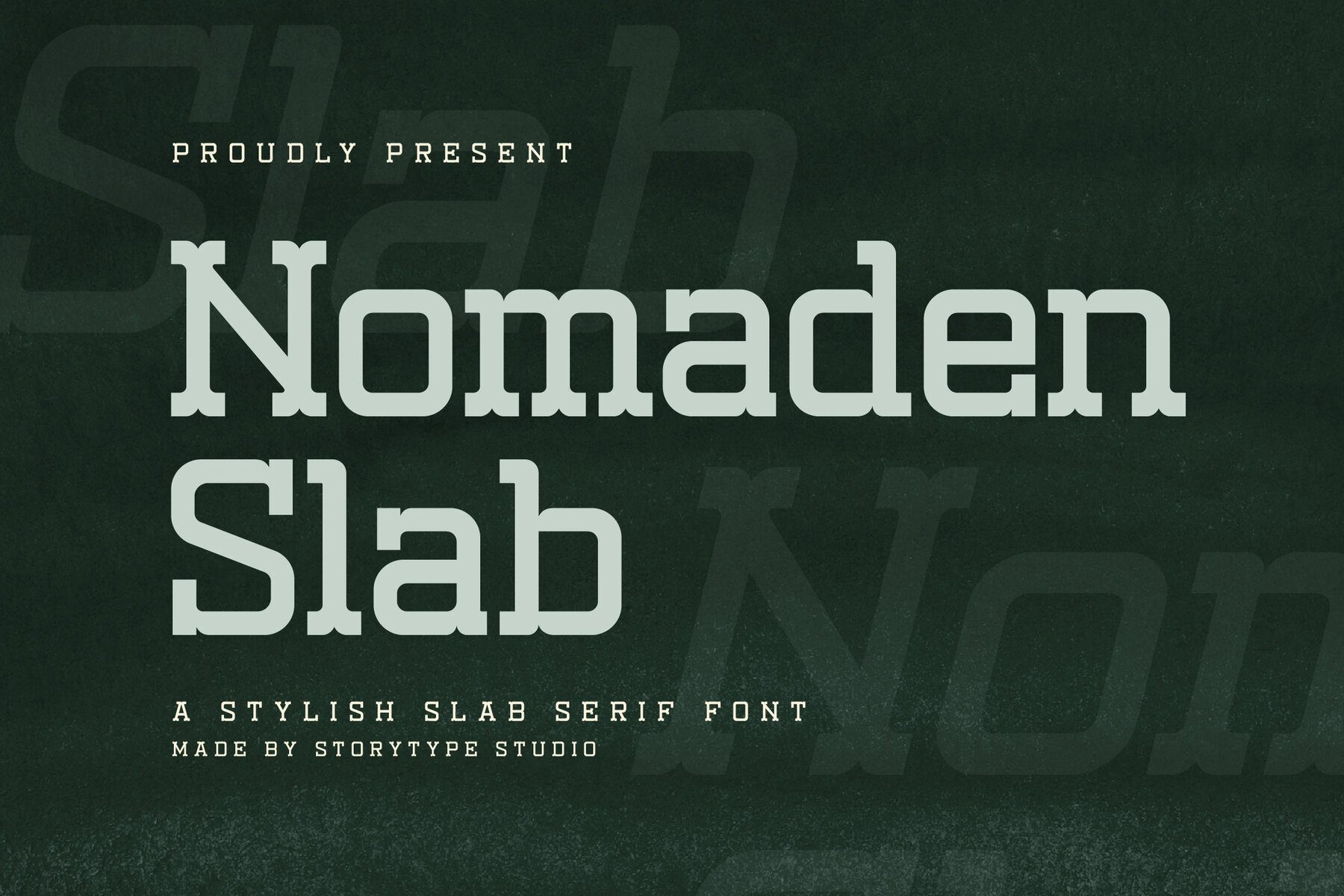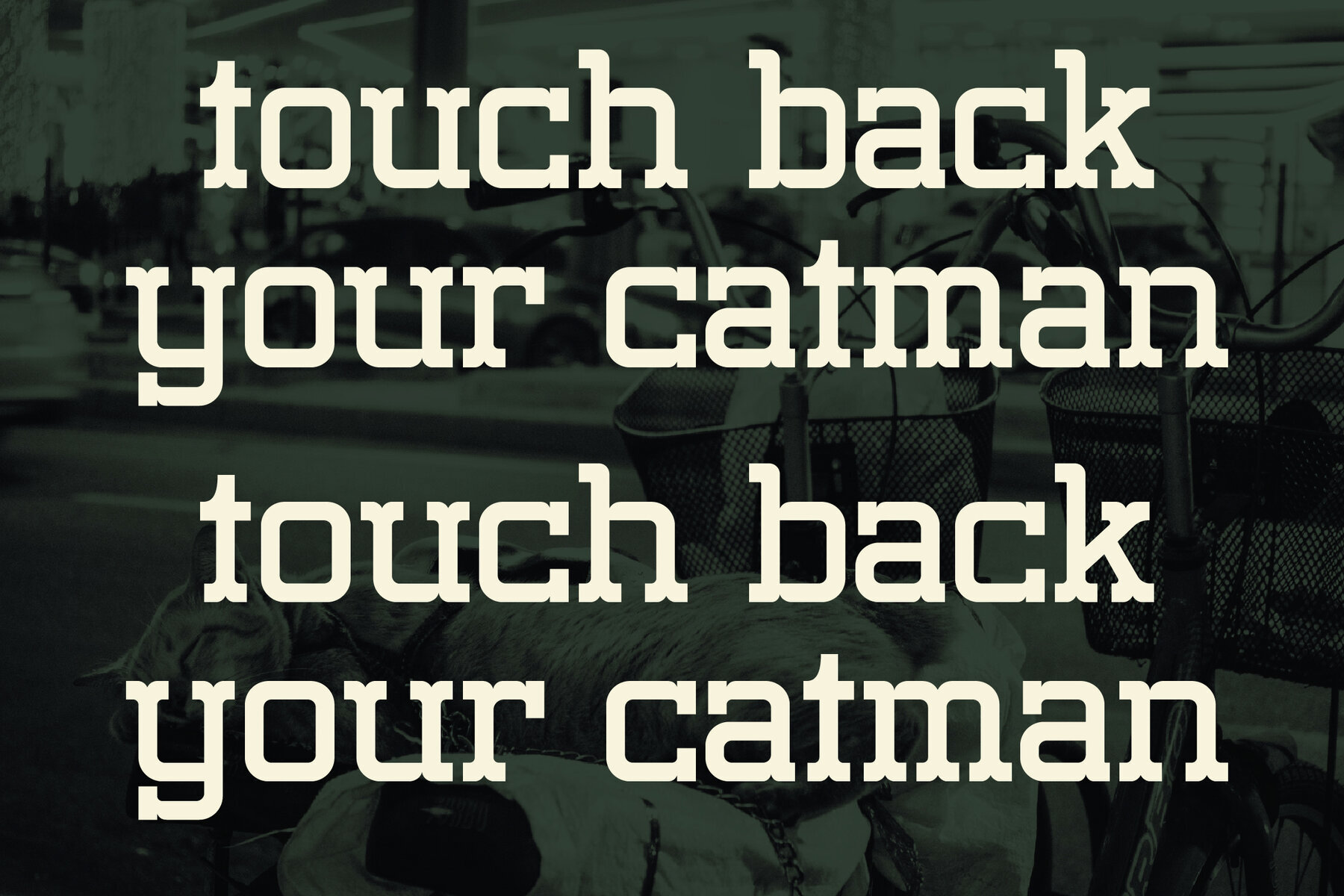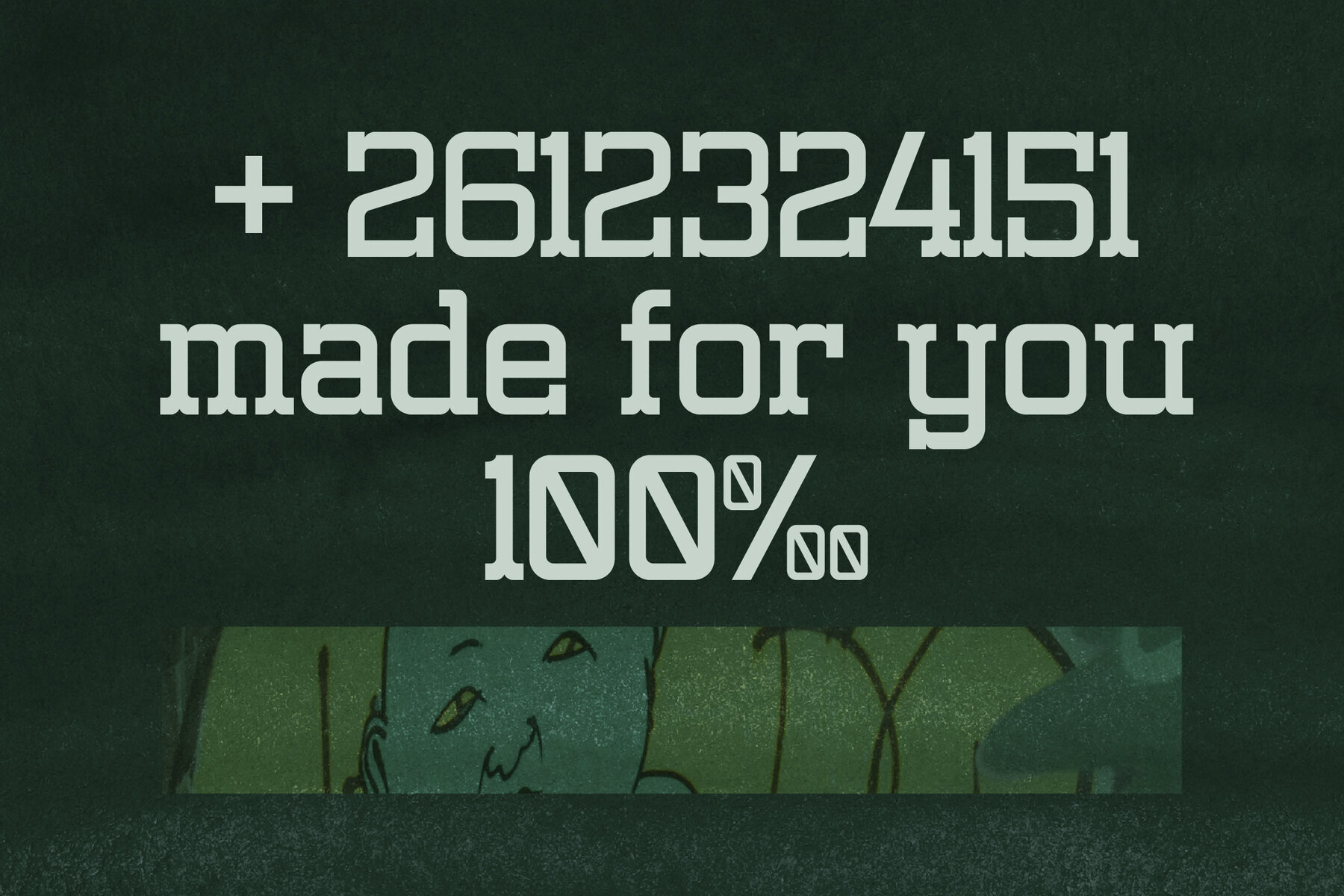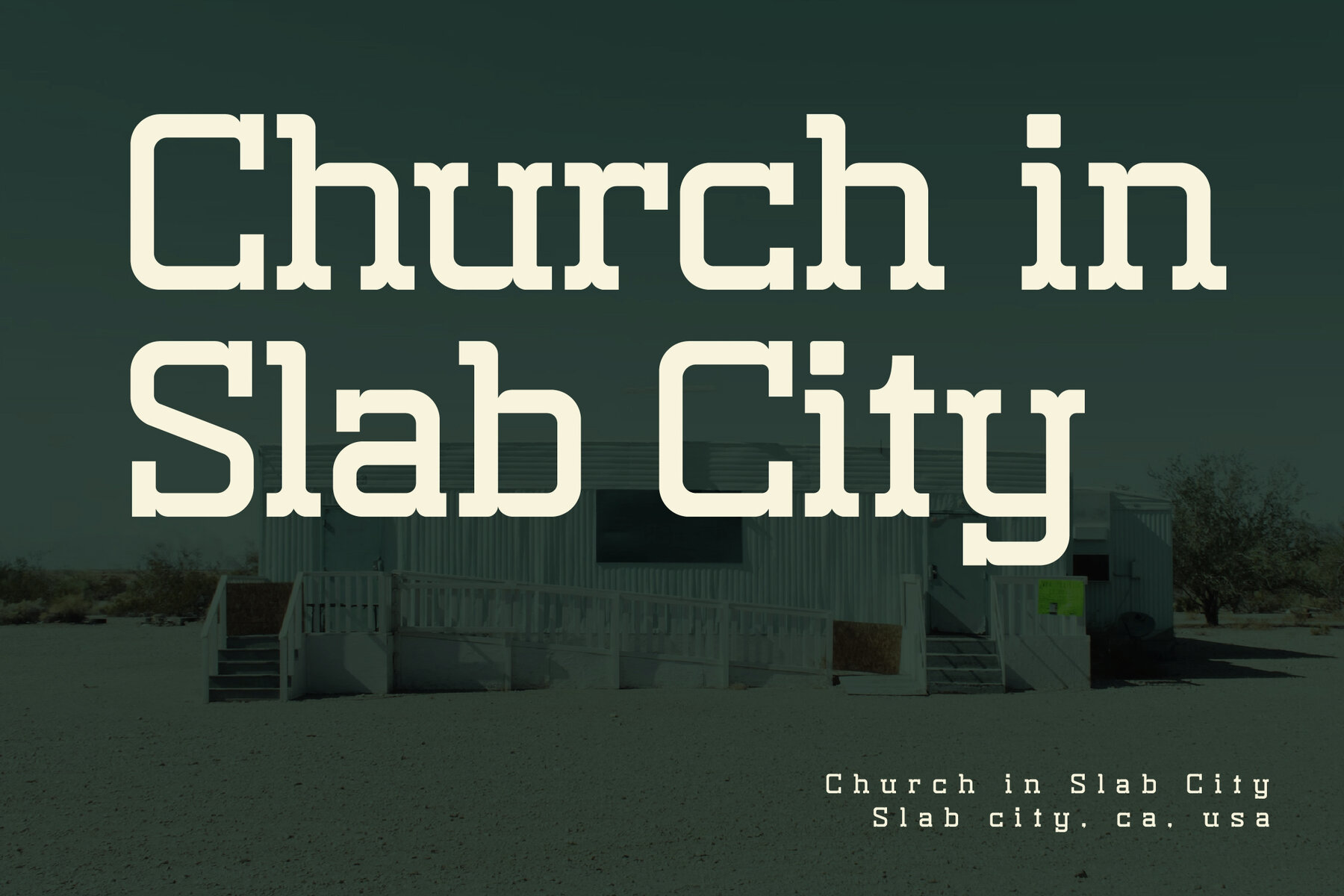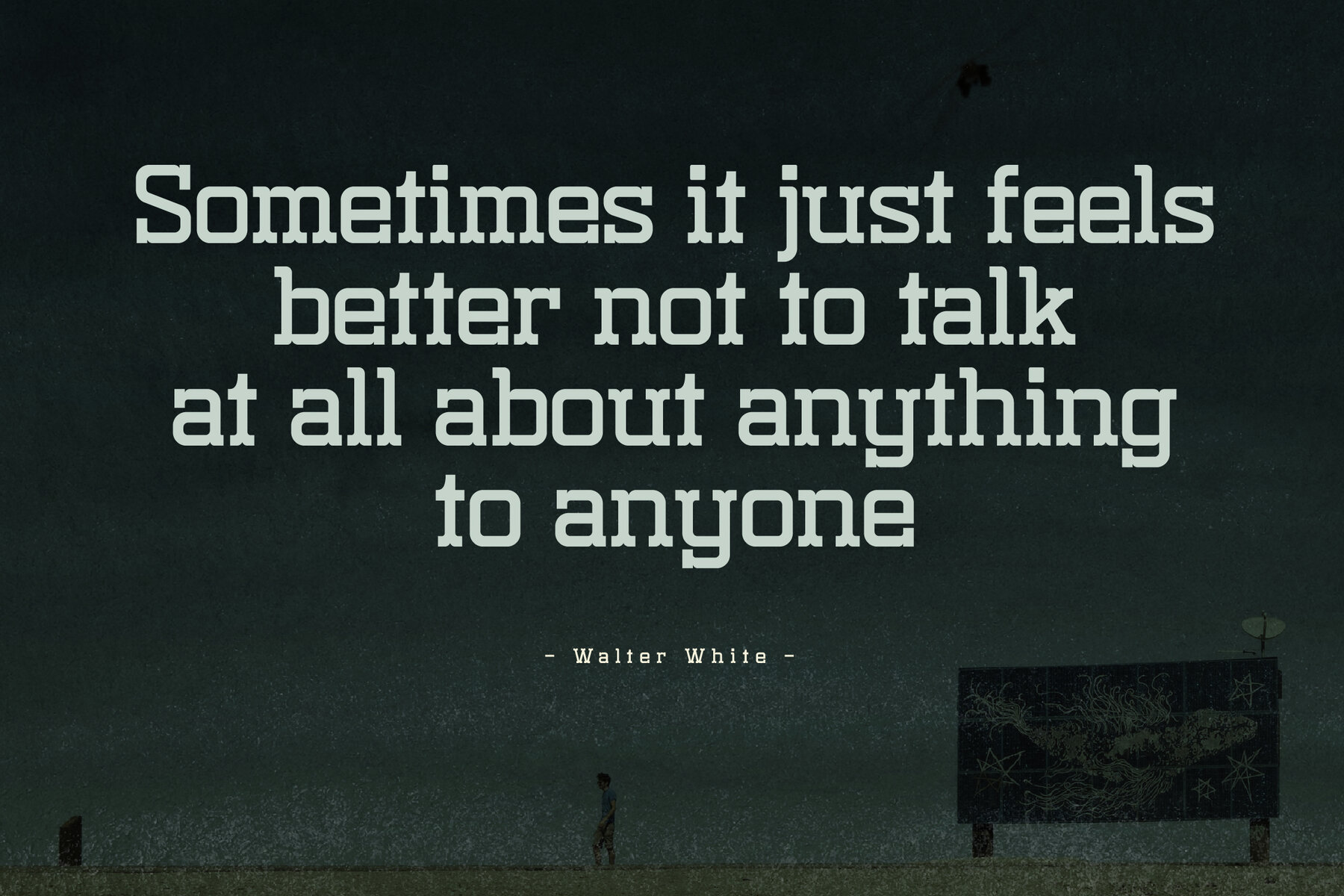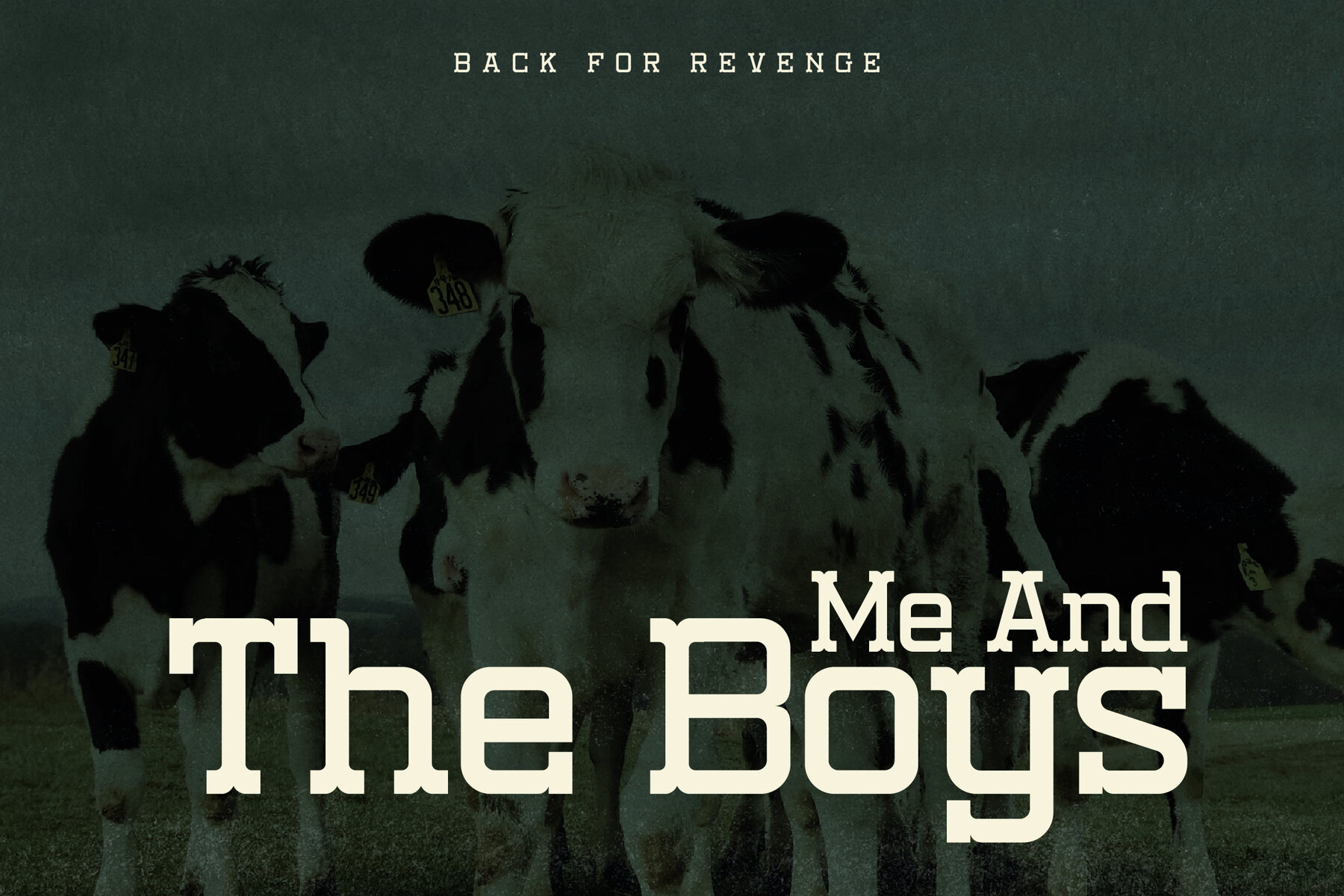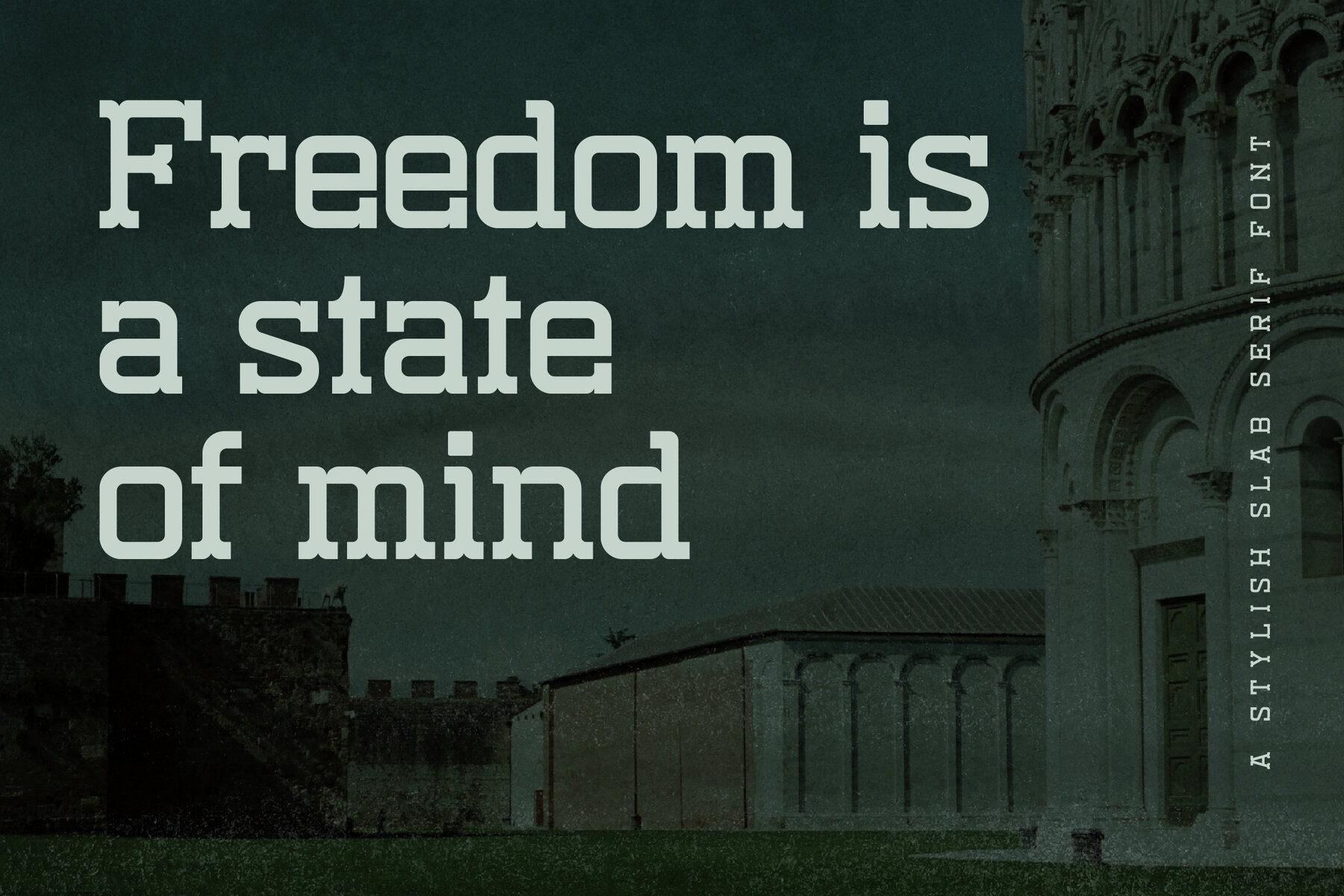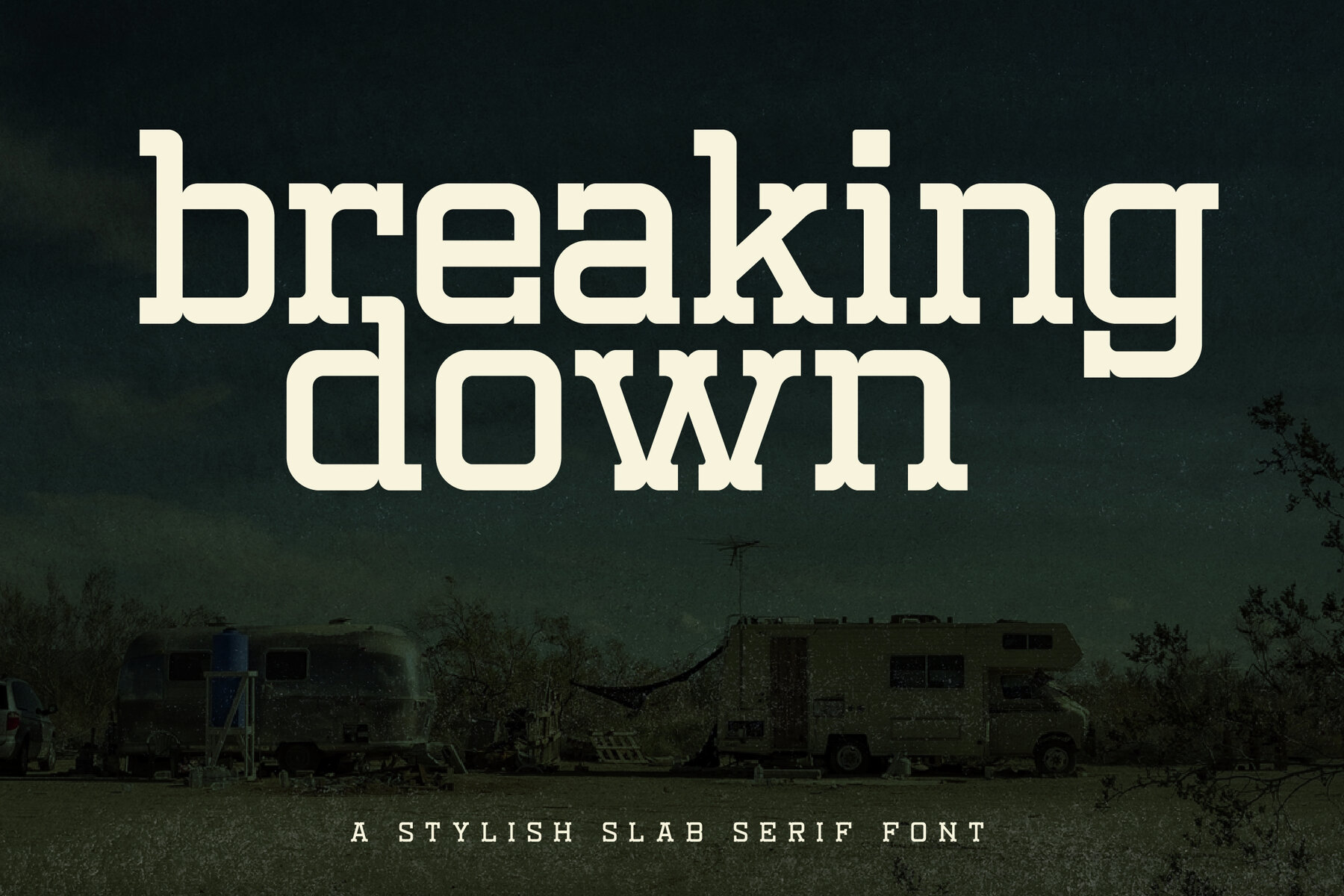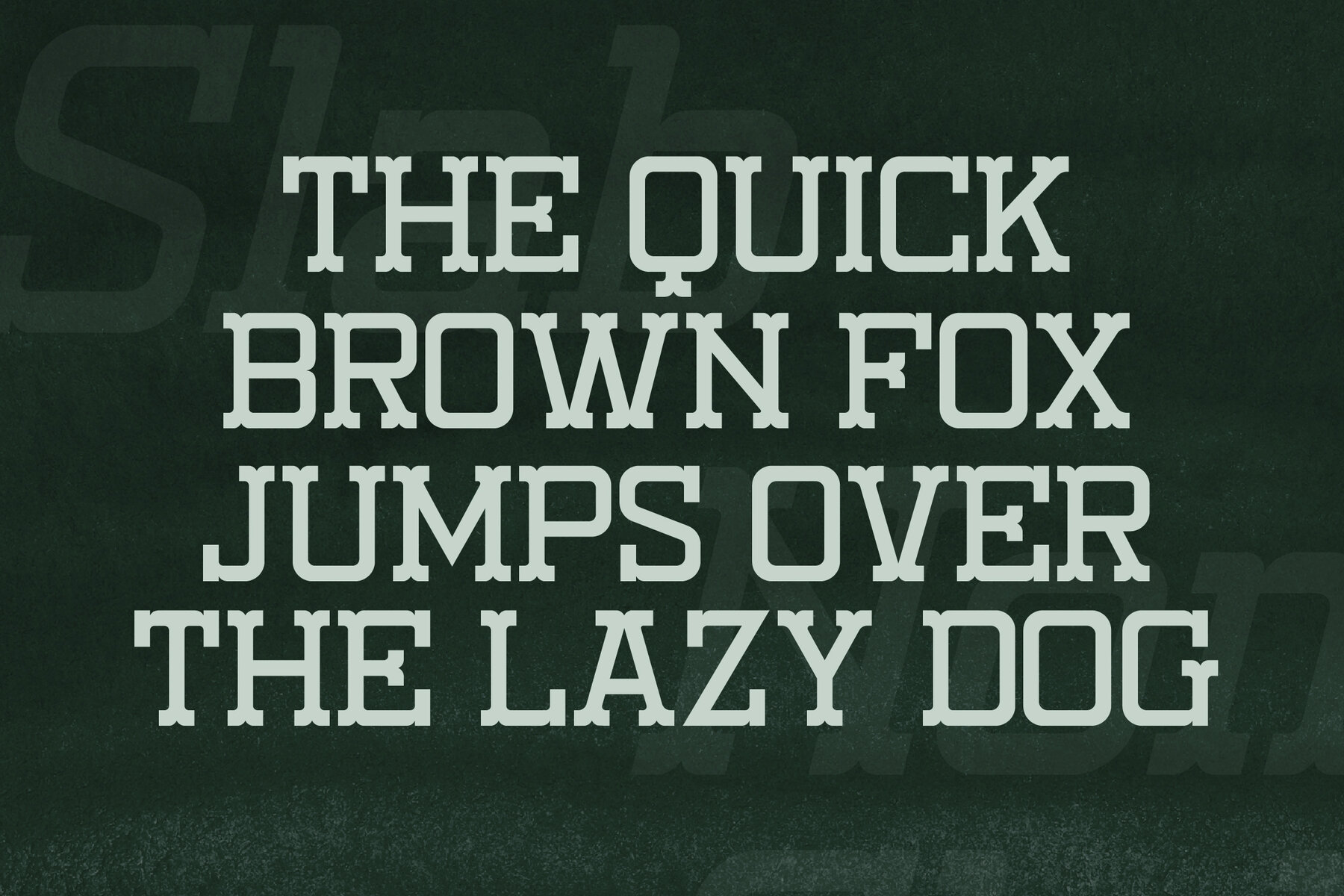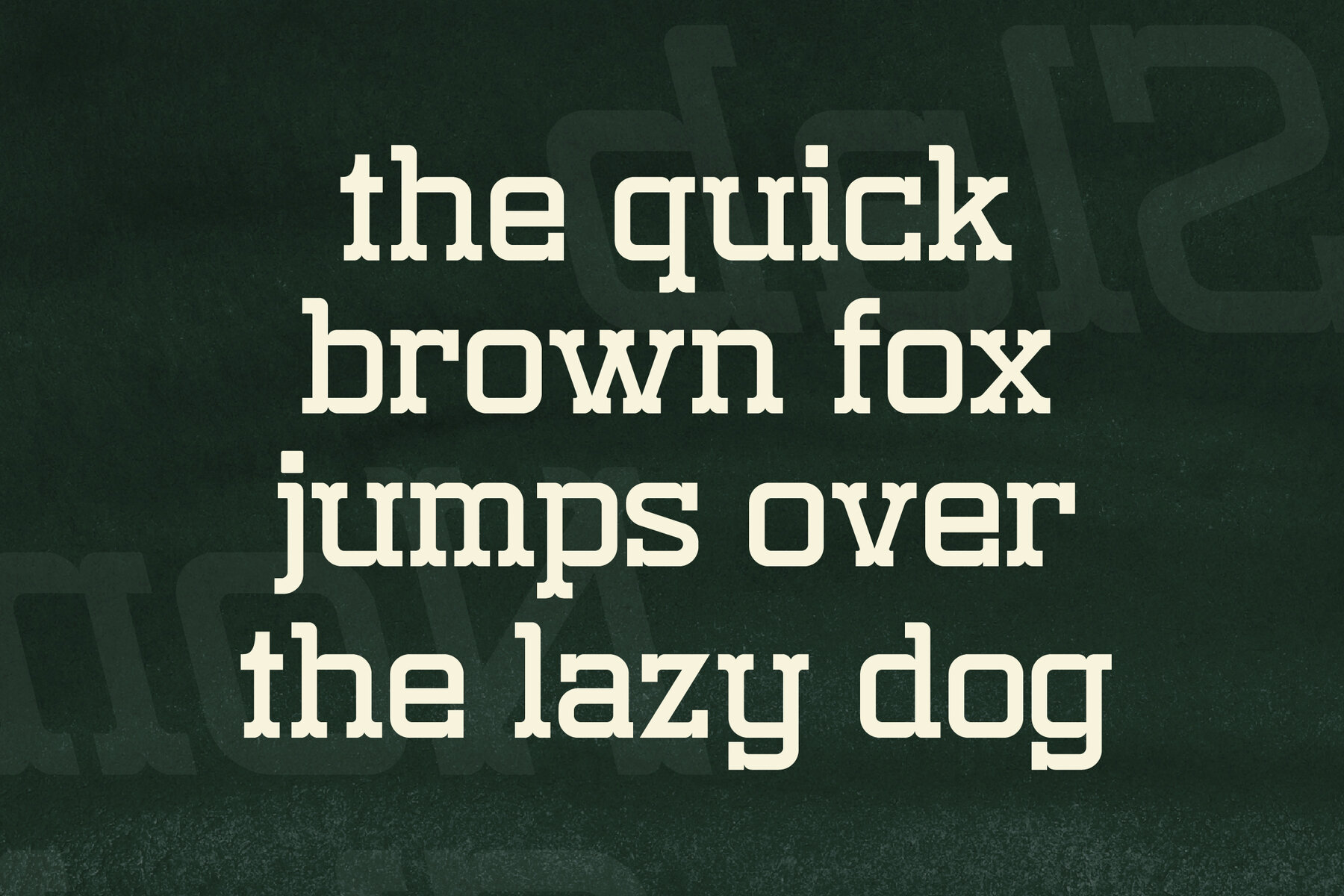
Nomaden Slab Font
Nomaden Slab Typeface by Storytype offers a unique blend of modern aesthetics and classic serif charm. This typeface is ideal for crafting an elegant and luxurious logo, book or movie title, and is perfect for fashion branding, magazines, and more.Nomaden Slab Typeface: Modern Elegance Meets Classic Design